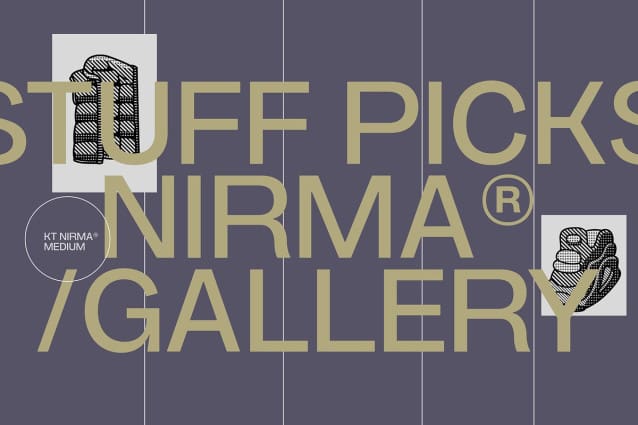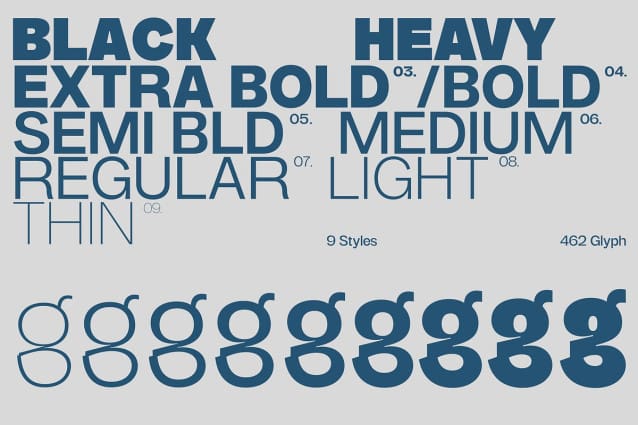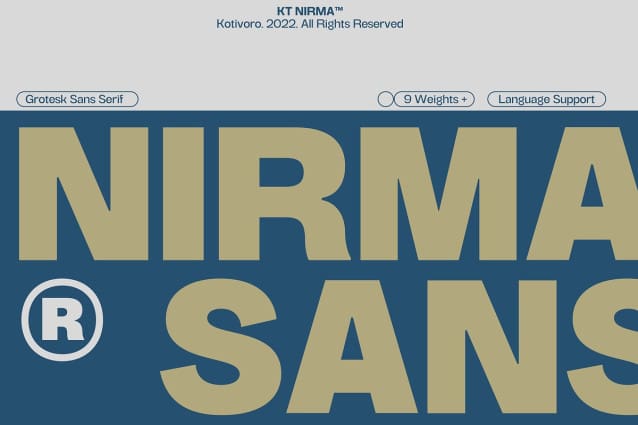
KT Nirma Font
KT Nirma Font is a typeface with 9 Weight Sans Serif from thin to Black, inspired by Founders Grotesk, This project start from April 2022 and start from the stretch until shaped the solid character to represent the Dynamic Sans Serif.
Nirma has total 462 glyph and 218 Support language. Nirma support Latin Basic, Latin-1 Supplement, Latin Extended A-B, Spacing Modifier Letters, and Combining Diacritical Marks.
The Solid Character has multi function Display Sans & Body text based on Display Grotesk. Especially in te Thin to Regular is more legible for body text and the black one good for Display Sans, with dinamyc shape and more wide.